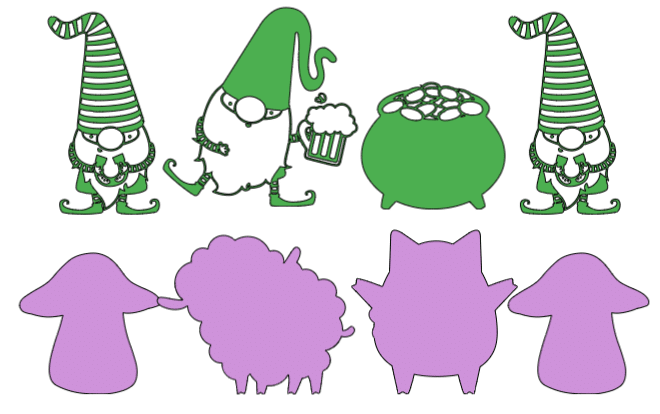
🖋️ Creative Dingbat Fonts in Cricut Design Space: Step-by-Step Guide to Using Dingbats, Symbols & Flourishes
If you've ever scrolled through fonts in Cricut Design Space and stumbled upon some that look more like tiny images than letters, congratulations—you’ve found dingbats! 🎨
Dingbat fonts are packed with creative potential. They’re actually symbols and illustrations assigned to letters, and they can be used just like any other design element in your Cricut projects. Whether you're making cards, custom t-shirts, or home decor, learning how to work with dingbat fonts will seriously boost your crafting game.
In this post, you’ll learn:
✅ What dingbats are and how to find them
✅ How to preview them with tools like Wordmark.it and MainType
✅ How to bring dingbats into Cricut Design Space
✅ How to edit, color, and customize them for cut, draw, engrave, and print-then-cut
🔤 Step 1: Understanding Dingbats and Where to Find Them
Dingbat fonts are collections of images or icons mapped to characters on your keyboard (A–Z, 0–9, etc). For example, typing the letter “A” might show a heart instead of a letter.
Where to Find Dingbat Fonts:
Google Fonts or Font Bundles: Look for freebies or themed dingbat fonts.
- Font Management Tools (like MainType) can show hidden characters and glyphs.
- Your own computer! Many symbol fonts are already installed (e.g., Webdings, Wingdings).
- Cricut Fonts - search through the fonts Cricut provides.
💻 Step 2: Use Wordmark.it to Preview Fonts Easily
Before jumping into Design Space, preview what’s already on your system.
Visit Wordmark.it
- Type in a word (like “LOVE” or “GIFT”)
- Click Enter — this shows every font on your system, including dingbat fonts
- Select the ones you like for your project (great for comparing styles!)
🎨 Step 3: Start a Project in Cricut Design Space
- Open Cricut Design Space and create a New Project
- Click on Text and type any letter
- Click the Font dropdown
- Choose System Fonts and search for a dingbat font (like “Webdings” or “DB Irish Gnomes”)
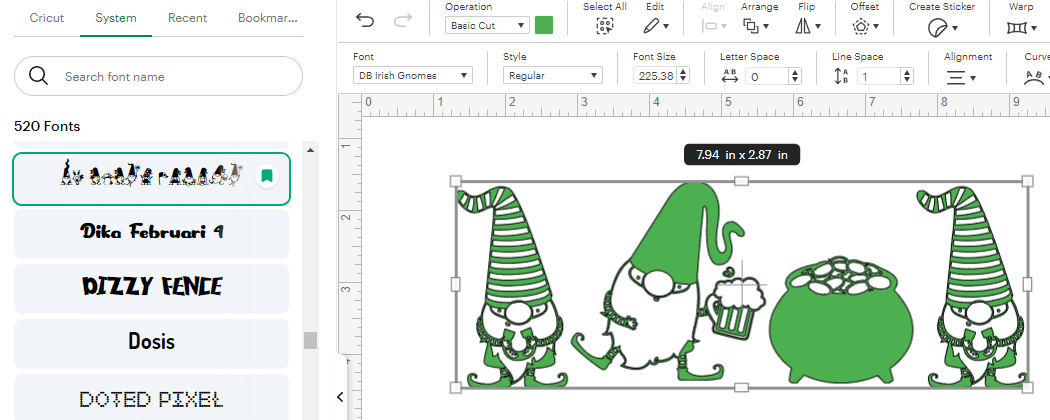
🛠️ Step 4: Customize the Dingbat Character
Once your dingbat symbol appears, you can:
- Resize it like any other image
- Change it from Cut to Draw, Foil, Deboss, or Engrave
- Add Offset for shadows or borders
- Flatten it for Print Then Cut projects
- Change the Color to suit your design palette
📝 Example: Select a cute gnome (letter “D” in DB Irish Gnomes), change its line type to "Draw", then switch to green ink—perfect for a St. Patrick’s Day card!
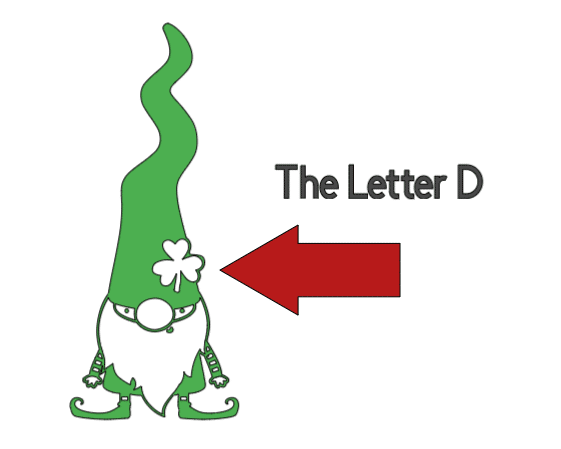
🧩 Step 5: Extracting Hidden Glyphs & Flourishes Using MainType
Some fonts come with swirls, hearts, and swashes—called glyphs—but Cricut Design Space often won’t show them.
To unlock them:
- Open the font (like “Elation Script Italic”) in MainType
- Scroll through the extra glyphs—click and Copy to Clipboard
- Paste directly into Cricut Design Space text box
🔁 You now have access to elegant script flourishes or hidden icons most crafters miss!
🖼️ Step 6: Turning Dingbats into SVGs or Printable Designs
If you want even more control:
- Paste the symbol into Canva, color it, and export it as a PNG. You can also take a screenshot inside of Design Space and then import it to Canva.
- Upload the PNG into Inkscape, trace it, and save it as an SVG
- Bring the SVG back into Cricut Design Space
🔁 This method gives you ultimate flexibility to modify or combine dingbats into your own designs.
🧠 Bonus Tip: Keep a Dingbat Cheat Sheet
Because dingbats aren’t labeled with what image matches which letter, create your own cheat sheet:
Type the full alphabet in Cricut Design Space using your dingbat font
Resize and screenshot or print it
Keep it handy so you always know which letter gives you what icon!
🛍️ Recap: Dingbats Open a Whole New World for Cricut Crafters
Dingbats are more than quirky fonts—they’re mini image libraries at your fingertips. By using Wordmark.it to preview, MainType to extract glyphs, and Cricut Design Space to customize, you’ll create eye-catching projects with ease.
Here’s your Cricut Dingbat Toolkit:
Ready to give it a try? Grab a font, pick a letter, and let the creativity flow! ✨